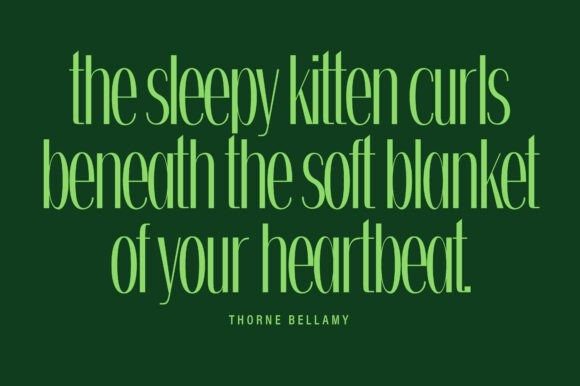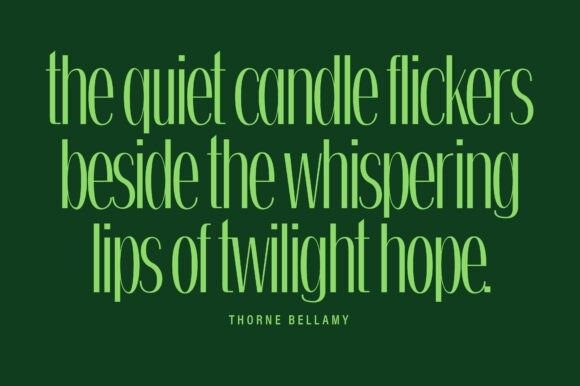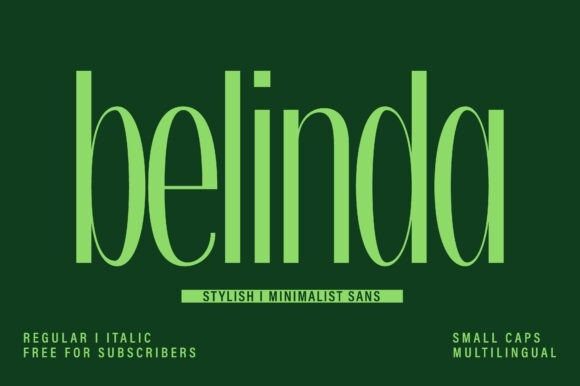
Belinda Sans Serif Font— a refined blend of elegance and clarity. Perfect for branding, editorial layouts, packaging, and modern web design, this font offers a tall, narrow silhouette that commands attention while remaining effortlessly stylish. Whether you’re crafting luxury logos, fashion lookbooks, or clean UI interfaces, this typeface delivers sophistication with every letterform.
Designed for those who value simplicity, precision, and timeless aesthetics, this font is your go-to choice for minimalist branding and high-end visual storytelling. Download now and transform your typography into a statement of style.